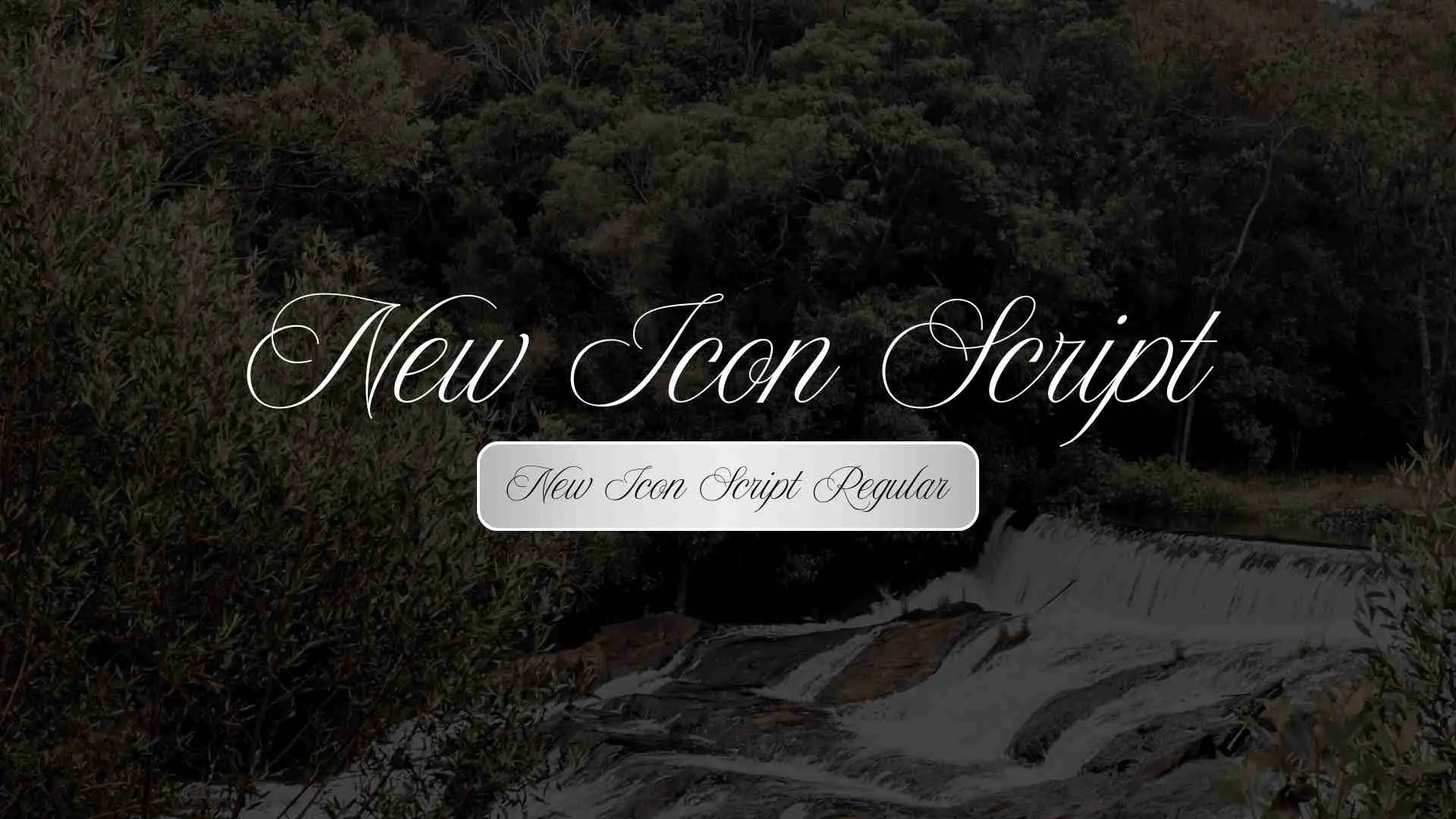
The font New Icon Script Regular, designed by Sam Parrett, falls under the Script category & New Icon Script font family. Its smooth, flowing letterforms make it a versatile choice for projects that require both elegance and readability. New Icon Script is particularly well-suited for Body Text, Headlines and Display Text, Wedding Invitations and Stationery, Packaging and Apparel, Social media and digital content and Branding and Logos. With its balance of simplicity and decorative appeal, this font brings a polished touch to both personal and professional designs.